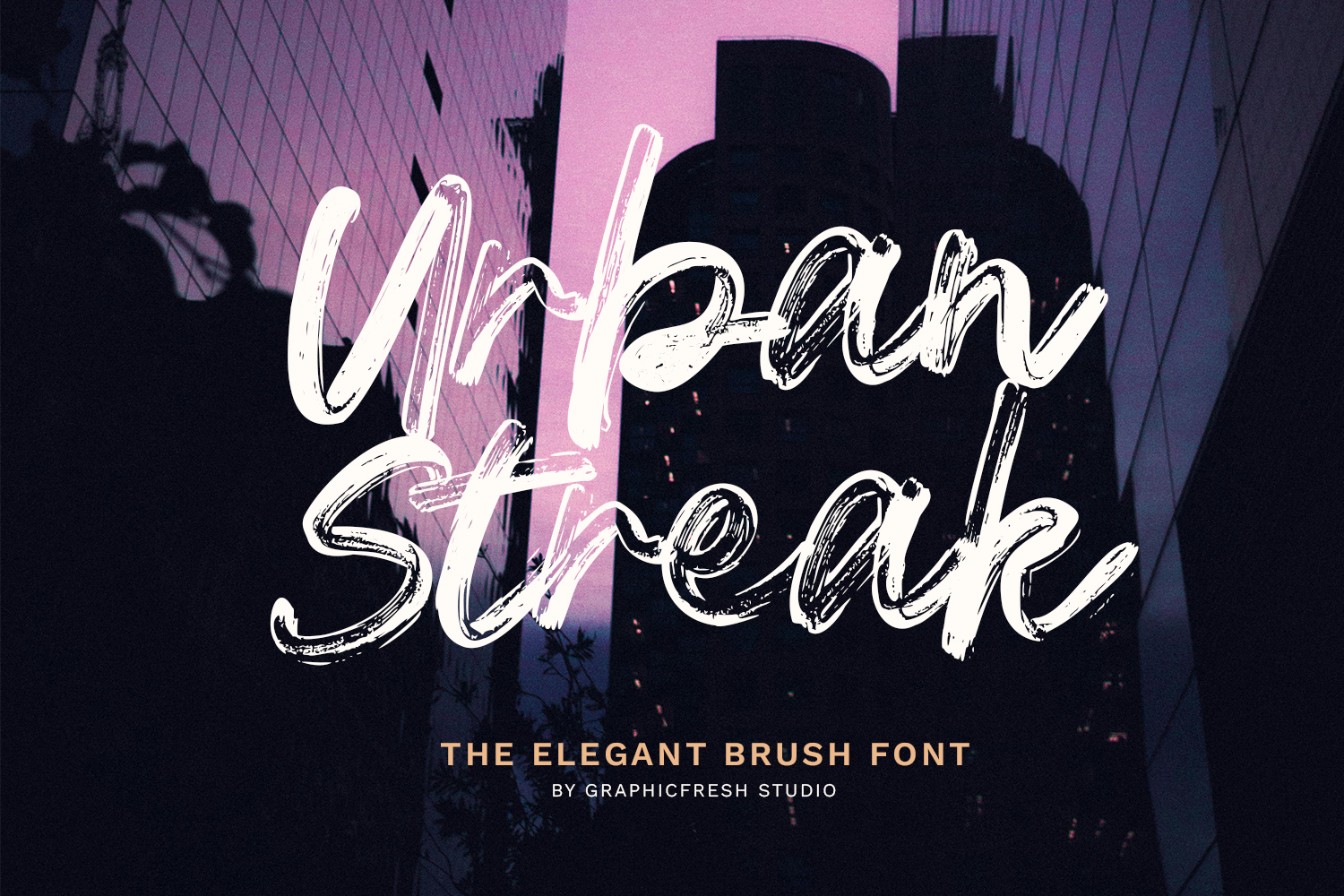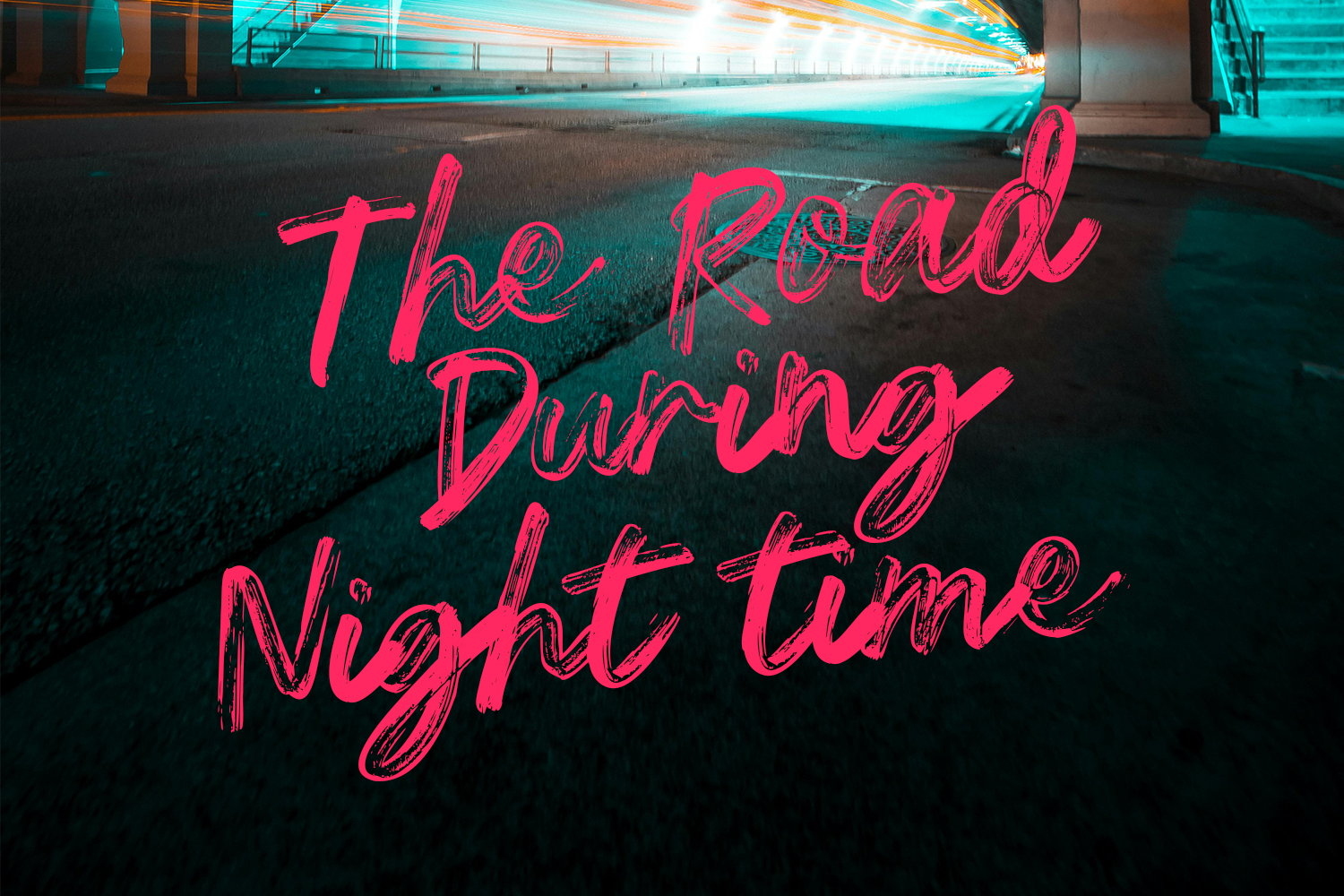
Urban Streak - The Elegant Brush Font
Urban Streak is an elegant brush font that blends refined style with natural hand-painted strokes. Designed with smooth flow and subtle texture, this font delivers a sophisticated yet expressive look. Its graceful curves and balanced rhythm make it perfect for branding, logos, headlines, social media graphics, invitations, and modern visual projects that require a touch of artistic elegance. Urban Streak captures the beauty of handcrafted lettering while maintaining clarity and professionalism.